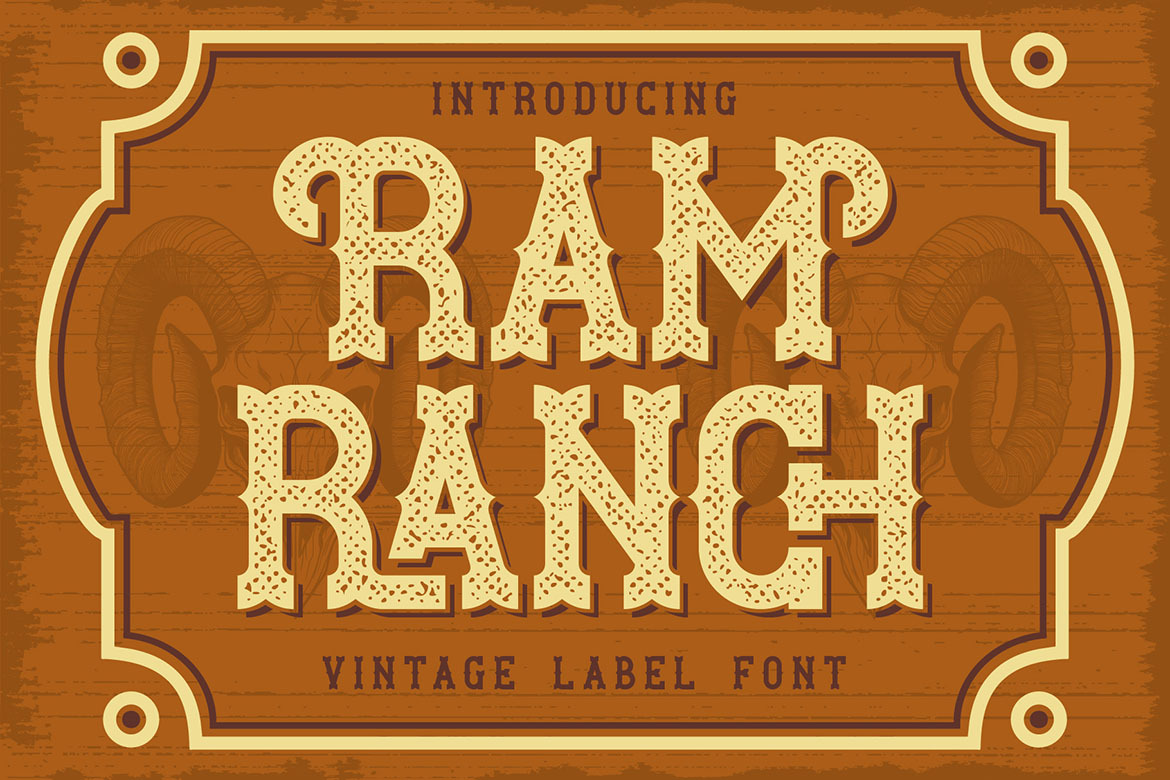
Ram Ranch Western Layered Font
Unique, creative, vintage, bold, western & layered label serif font. Comes with multilingual support, alternates & ligatures + 6 font versions - great for your new logo, monogram or branding project.
- 6 font versions
- Multilingual support, alternates & ligatures
- Great for retro or vintage style branding projects